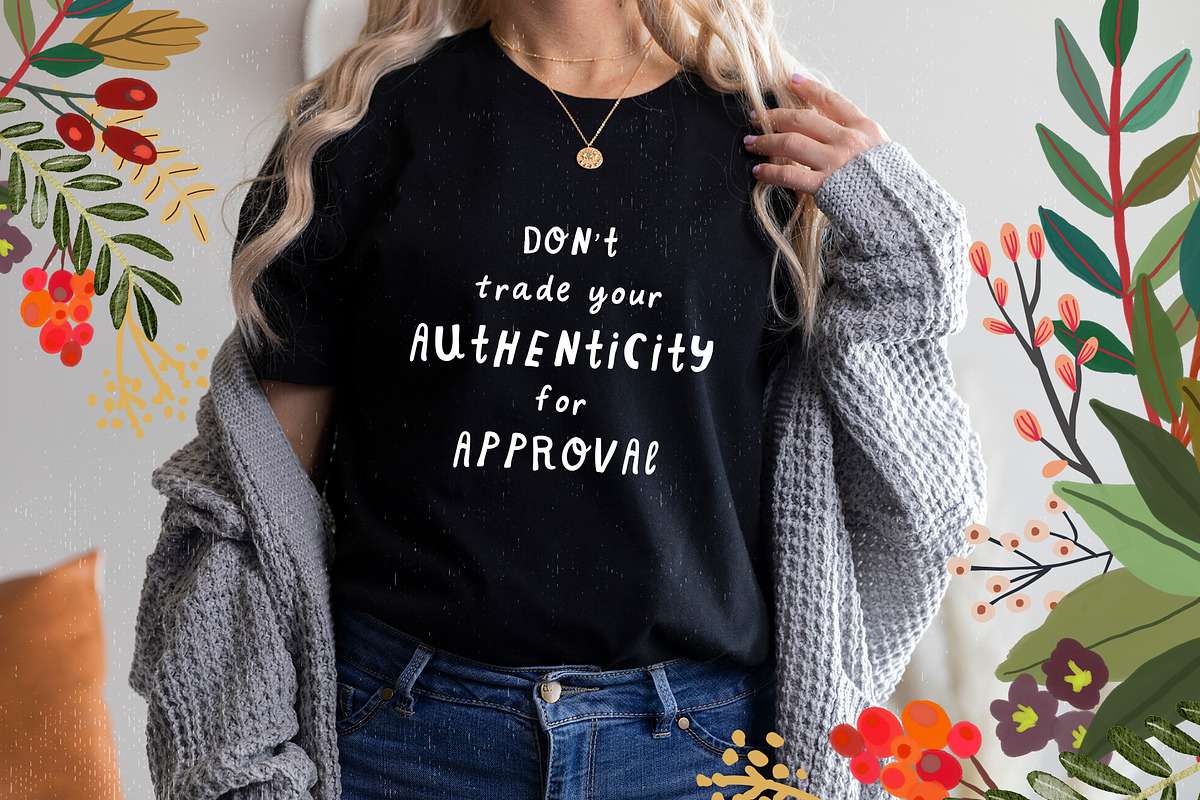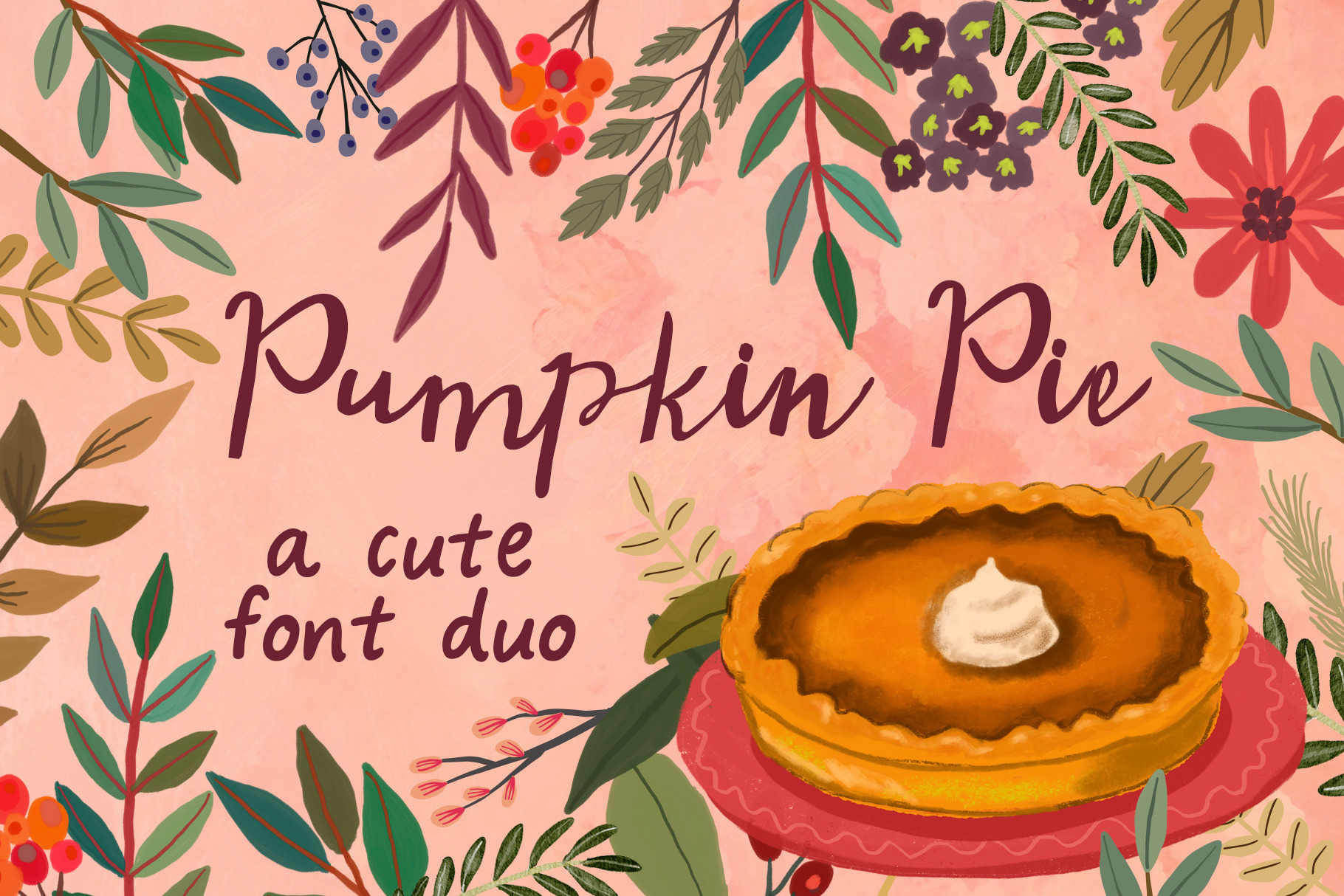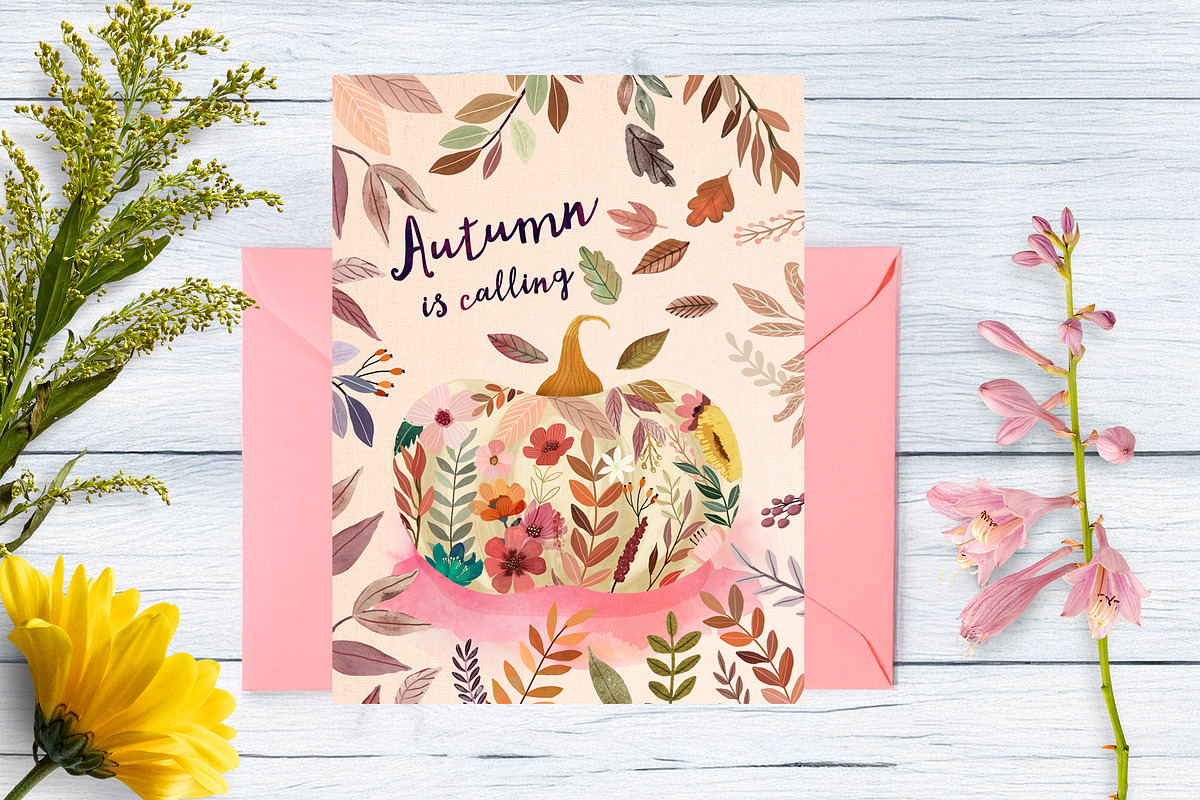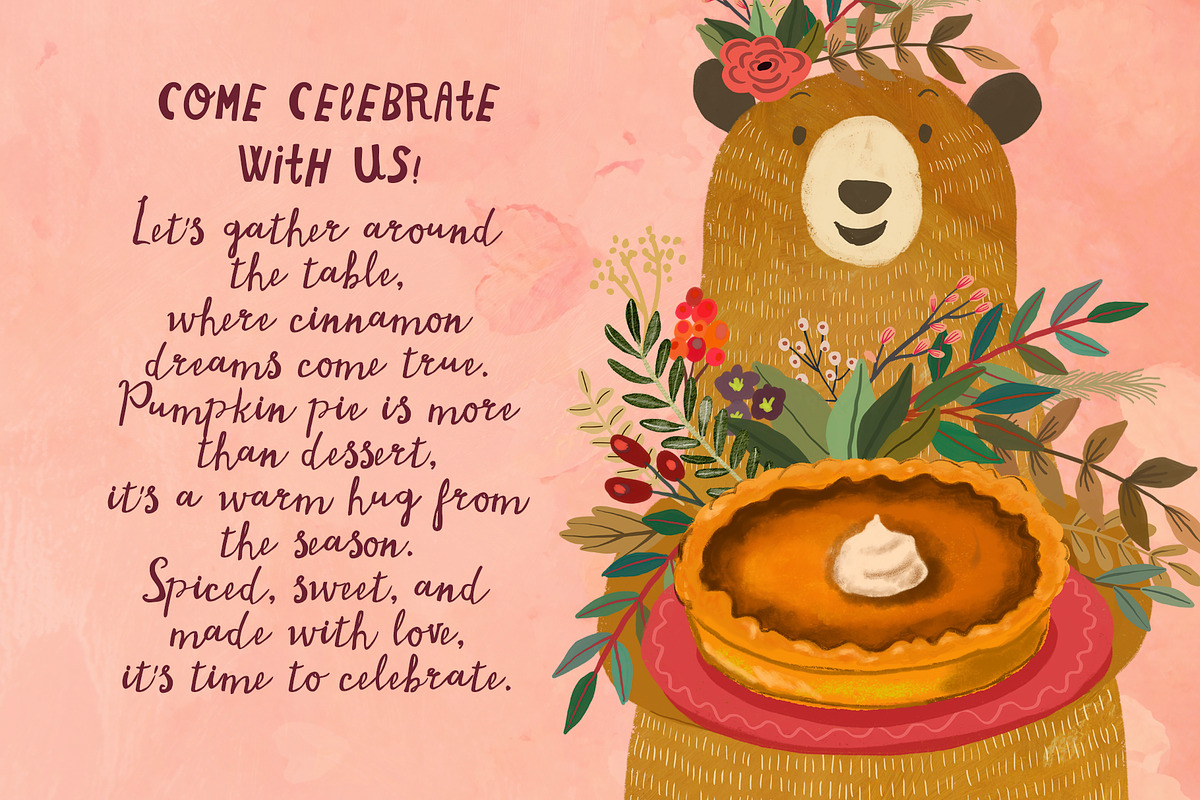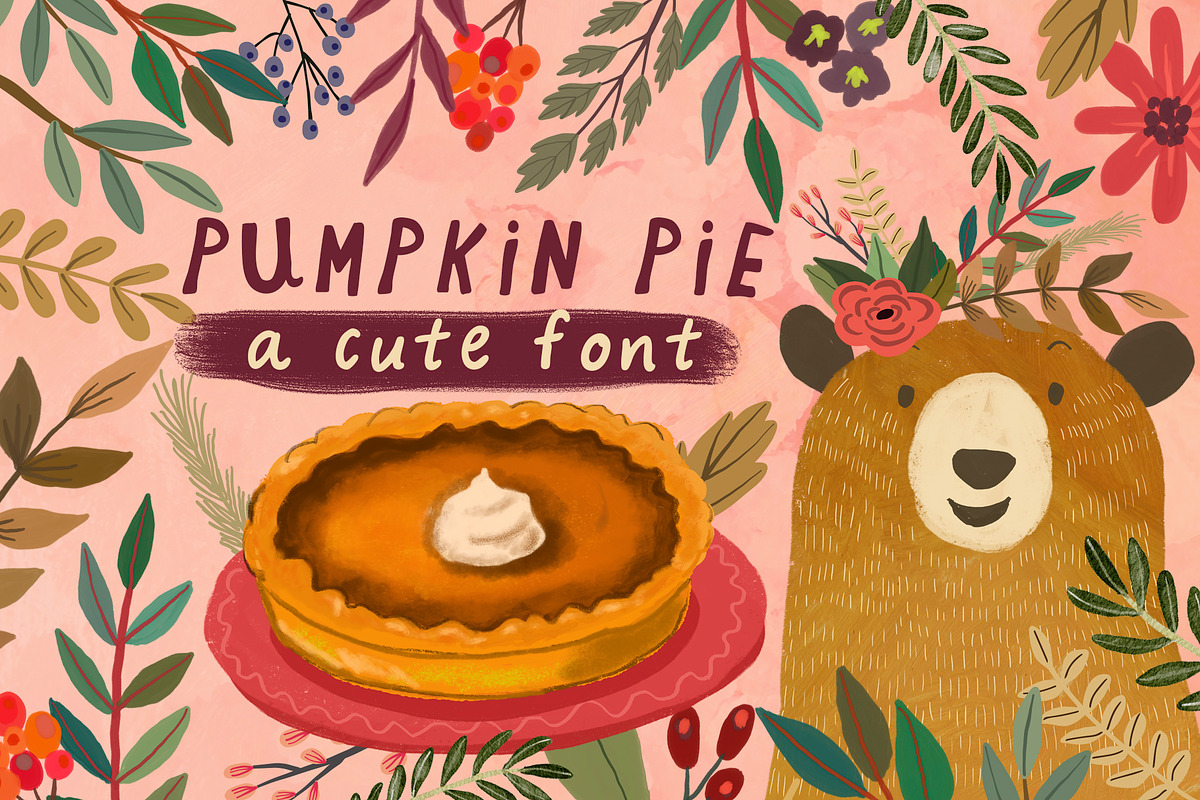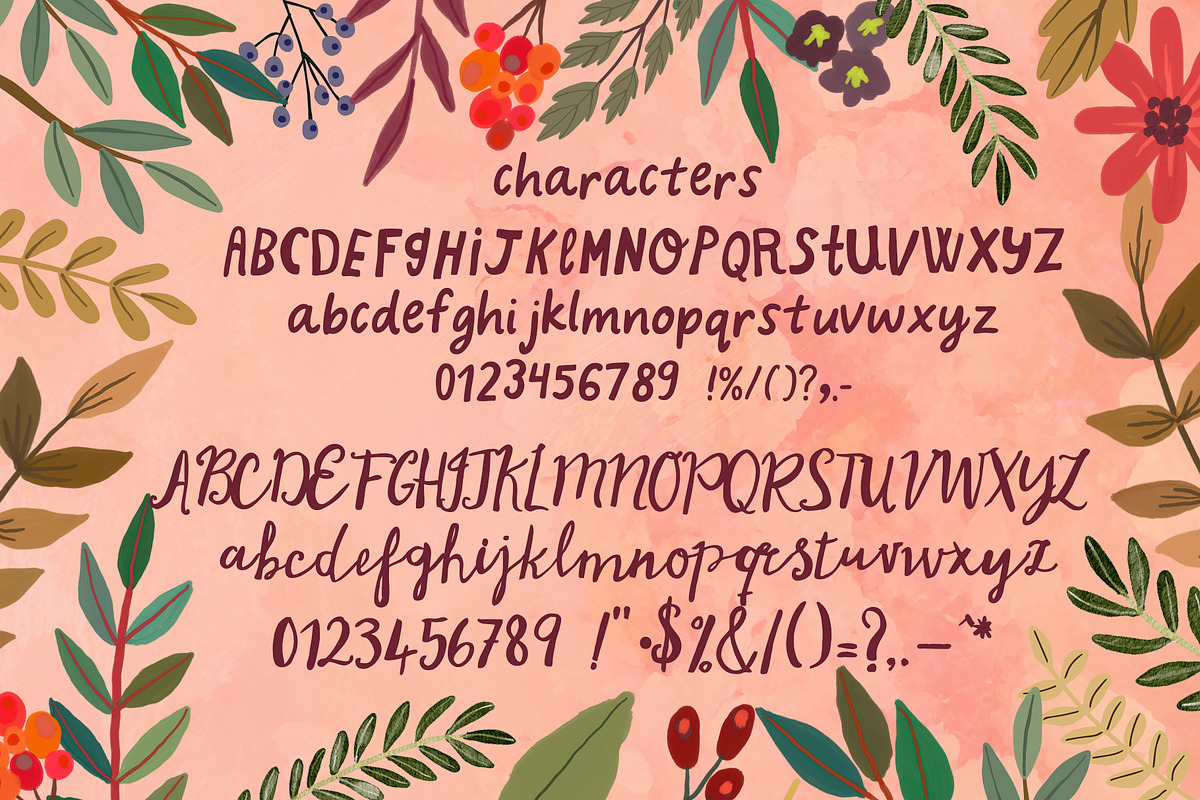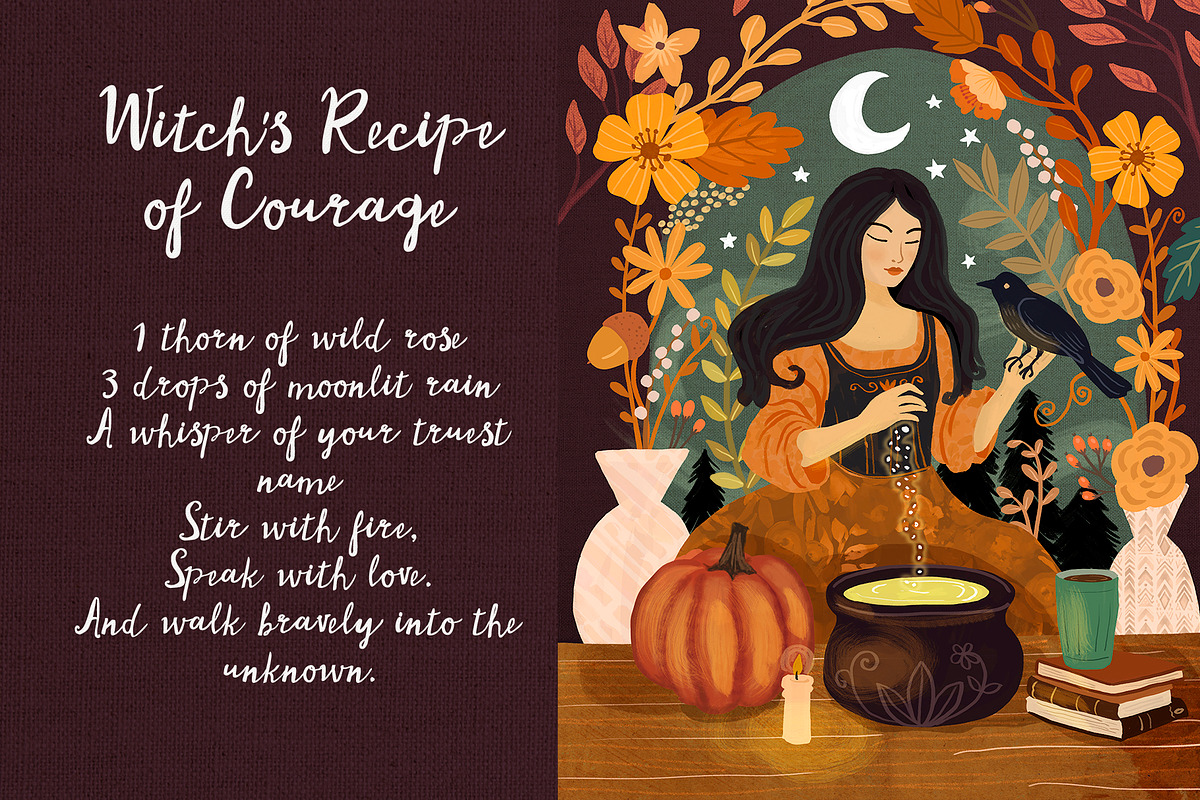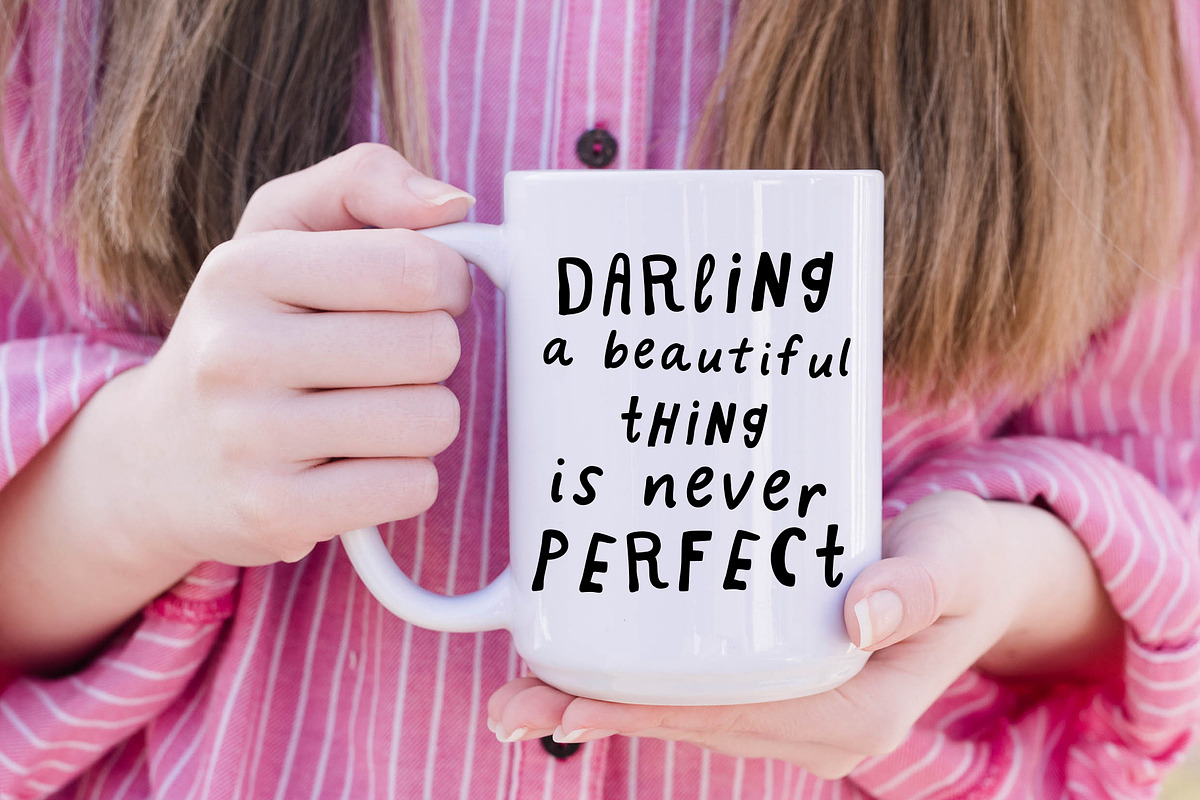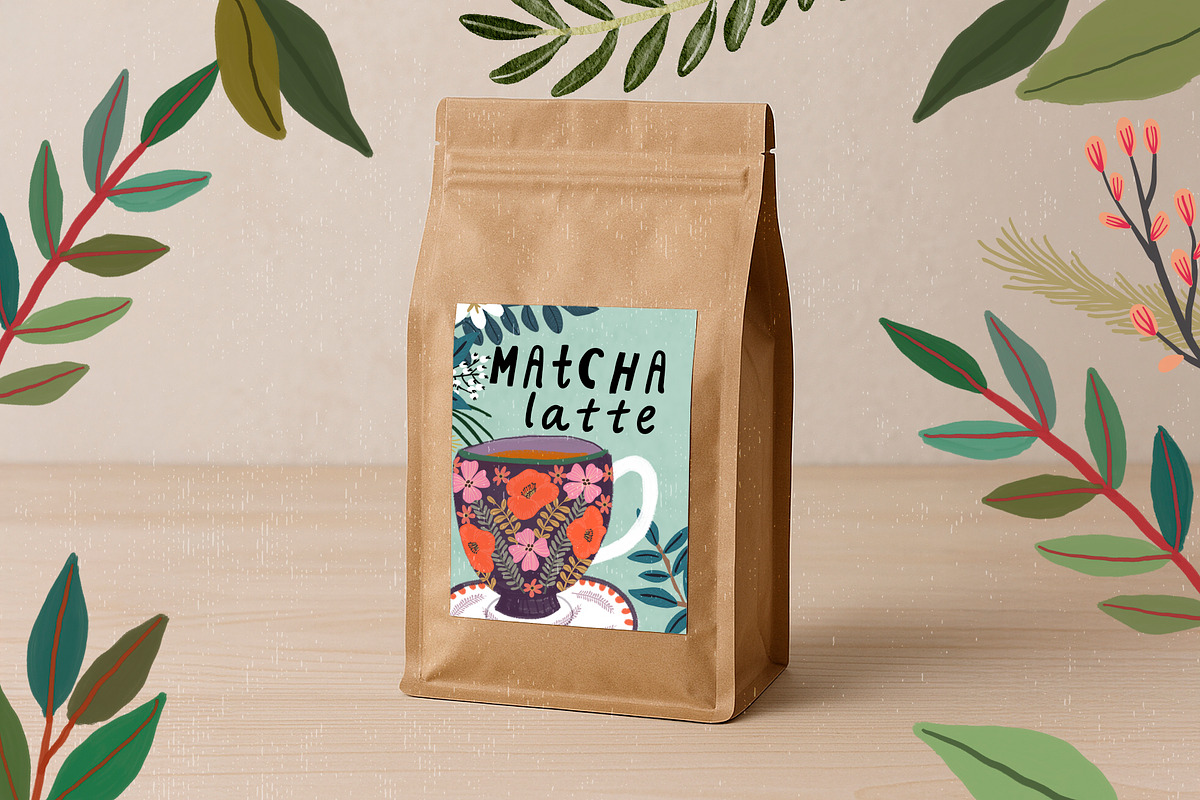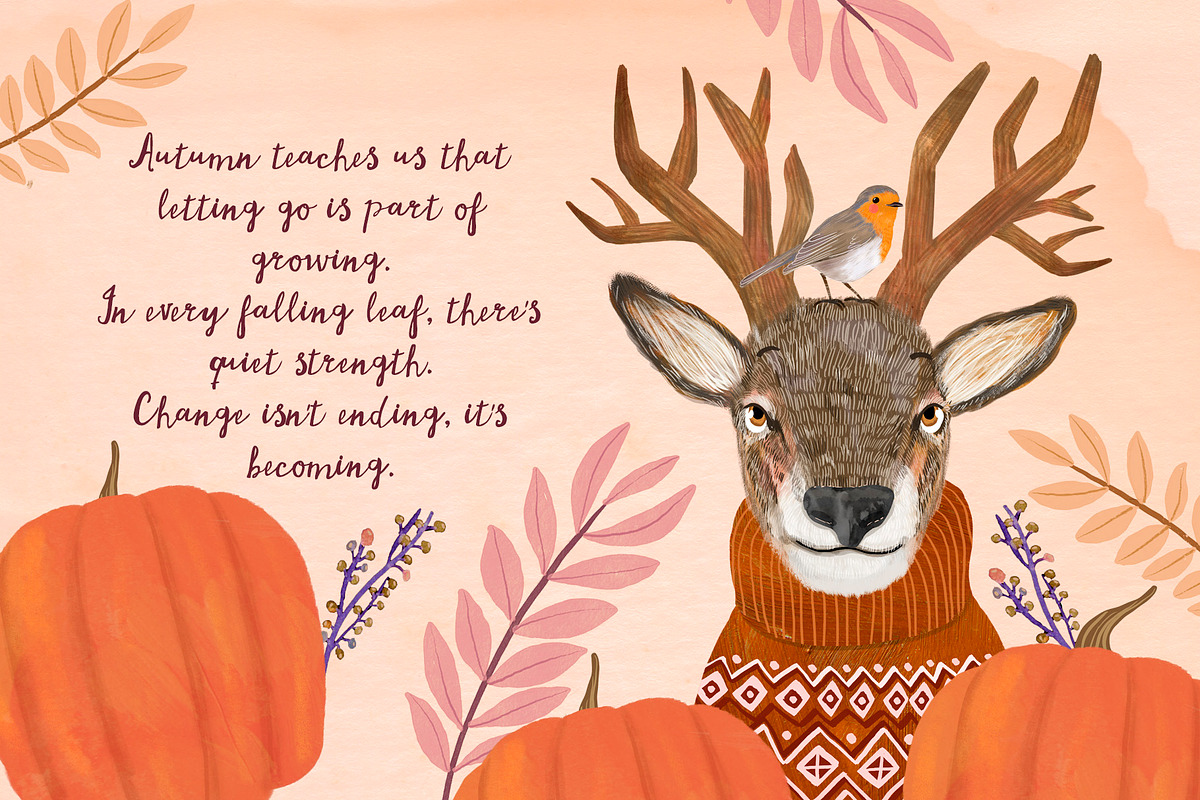
Pumpkin Pie Font Duo
Handmade with love, just like grandma’s favorite dessert! 🎃🍰
Pumpkin Pie is a sweet and playful handwritten font that brings cozy vibes and a sprinkle of fun to any project. With its slightly imperfect strokes and charming curves, it feels like a warm hug on a crisp autumn day. Perfect for greeting cards, kids’ projects, fall decor, and everything that needs a touch of homemade magic.
Add a slice of cuteness to your creations with Pumpkin Pie, because every word deserves a little sugar!